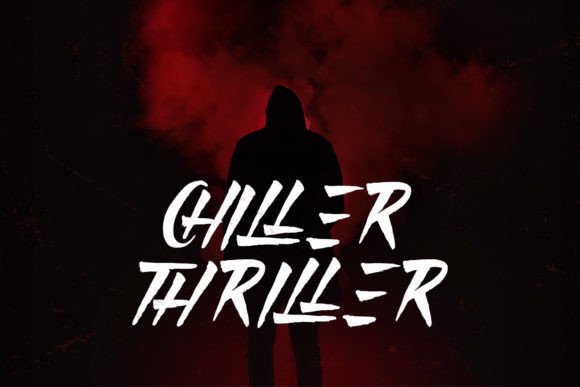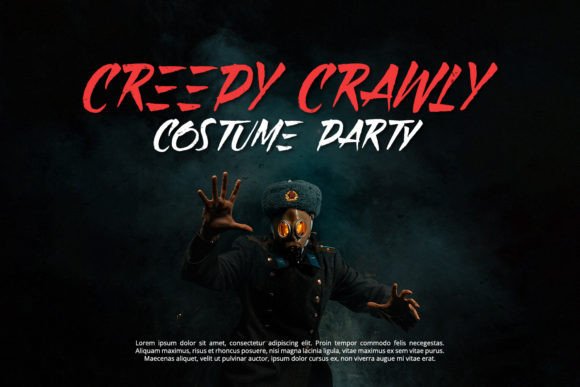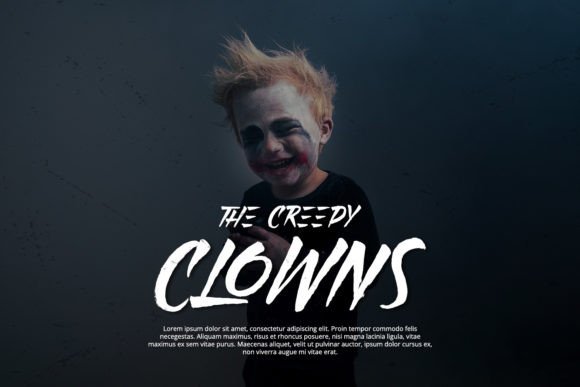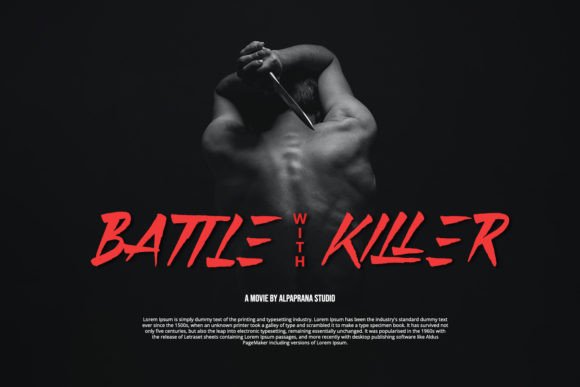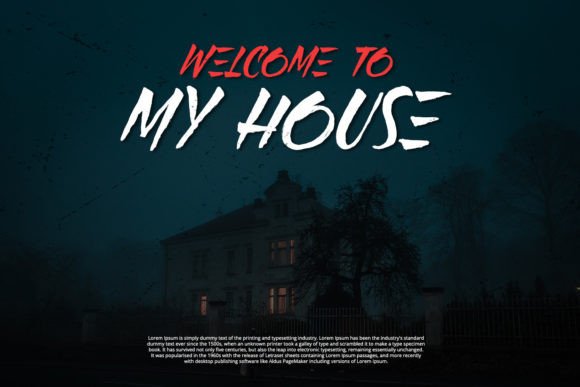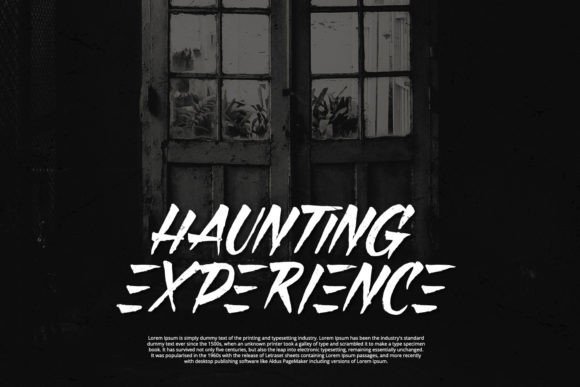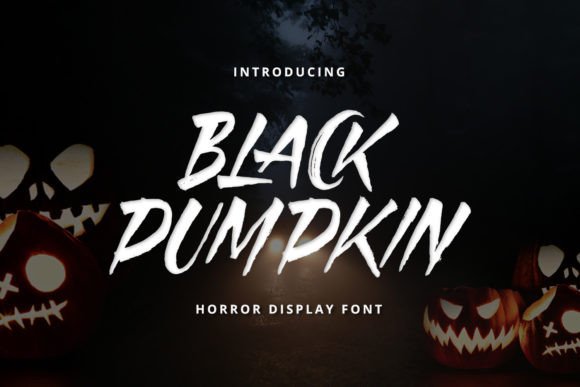
Unleash the Spook: Discover the Black Pumpkin Font for Your Horror-Themed Projects
As the spookiest time of the year approaches, designers and crafters are on the lookout for the perfect font to add a creepy touch to their Halloween or horror-themed projects. Look no further than the Black Pumpkin Font, a stunning horror display font that embodies the eerie and mysterious vibe of the season. In this article, we’ll dive into the features and benefits of this fantastic font, and explore how it can elevate your designs to the next level.
A Font that Embodies the Spirit of Halloween
The Black Pumpkin Font is specifically designed to capture the essence of Halloween and horror. Its creepy and spooky vibe is palpable, making it the ideal choice for any project that requires a touch of the macabre. Whether you’re working on a Halloween-themed invitation, a horror movie poster, or a spooky craft project, this font is sure to send chills down the spine of your audience.
PUA Encoding for Easy Access to Glyphs and Swashes
One of the standout features of the Black Pumpkin Font is its PUA (Private Use Area) encoding. This means that you can access all of the glyphs and swashes with ease, giving you unparalleled creative control over your designs. With PUA encoding, you can effortlessly insert special characters, ligatures, and other unique elements that will make your designs stand out from the crowd.
The Black Pumpkin Font is a versatile design asset that is perfect for a wide range of applications. Designers can use it to create stunning visual content for clients, while crafters can use it to add a personal touch to their DIY projects. Whether you’re a seasoned pro or a hobbyist, this font is sure to inspire your creativity and help you produce professional-looking results.
What You Can Create with Black Pumpkin Font
The possibilities are endless when it comes to using the Black Pumpkin Font. Here are just a few ideas to get you started:
- Halloween-themed invitations, party decorations, and social media graphics
- Horror movie posters, flyers, and social media promotions
- Spooky craft projects, such as Halloween-themed signs, banners, and garlands
- Eerie and mysterious branding and packaging designs for horror-themed products
- Creepy and atmospheric website headers, blog posts, and social media content
Why Choose Black Pumpkin Font?
So why choose the Black Pumpkin Font over other horror display fonts? Here are just a few reasons:
- Unique and eye-catching design that is sure to grab attention
- PUA encoding for easy access to glyphs and swashes
- Perfect for a wide range of applications, from digital design to crafting
- Creepy and spooky vibe that is perfect for Halloween and horror-themed projects